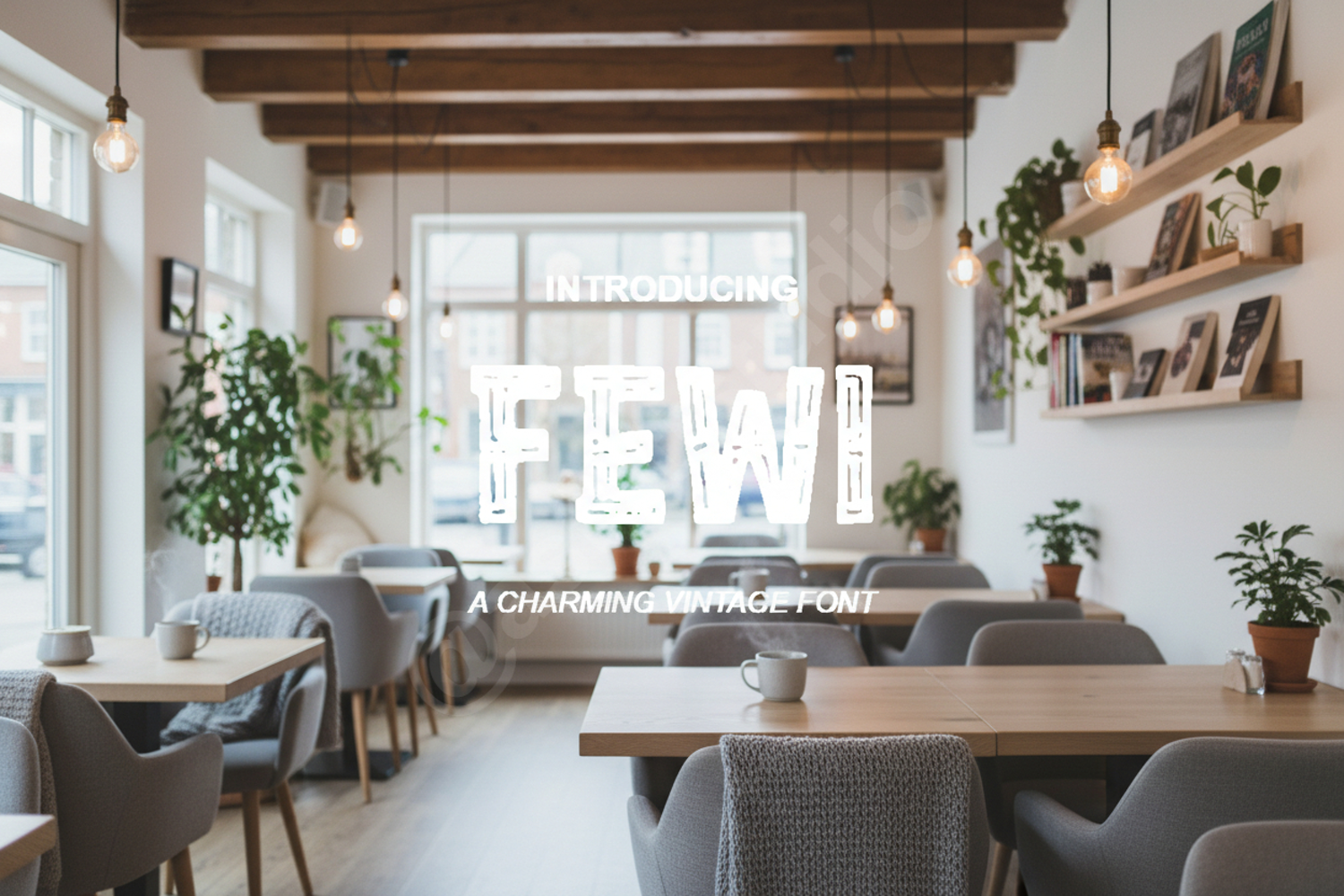
Fewi - Sophisticated Modern Sans Serif
Fewi
Introducing Fewi, a premium modern sans serif font designed for creators who demand elegance and clarity. Fewi balances contemporary aesthetics with timeless readability, making it an essential addition to your digital type foundry. Its clean lines and balanced proportions provide a professional touch to any design project, ensuring your work stands out with a minimalist yet high-end feel.
- Complete Alphabet (Uppercase and Lowercase)
- Numbers and Comprehensive Punctuation
- Extensive Multilingual Support